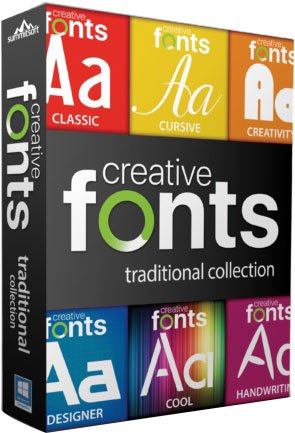
Creative Fonts by SummitType™. The creative team at SummitType Foundry, a division of Summitsoft, is where we design and craft each font in our collection. Each font is unique and can not be found elsewhere, making Creative Fonts a great source for your one-of-a-kind projects.
Traditional Fonts Collection
The Traditional Fonts Collection includes unique typefaces such as classic, cursive, creativity, designer, cool and handwriting fonts.
Wonderful Fonts Collection
The Wonderful Fonts Collection includes unique typefaces such as sci-fi, fun, sports, fantastic, games, and comic fonts.
Seasonal Fonts Collection
The Seasonal Fonts Collection includes unique typefaces & clip-art such as Christmas, Spring, Halloween, Classroom, Valentines and Wedding.
High Quality & Unique
Full Character Sets
Each and every creative font contains a full set of characters plus all of the international and foreign language symbols and special characters.